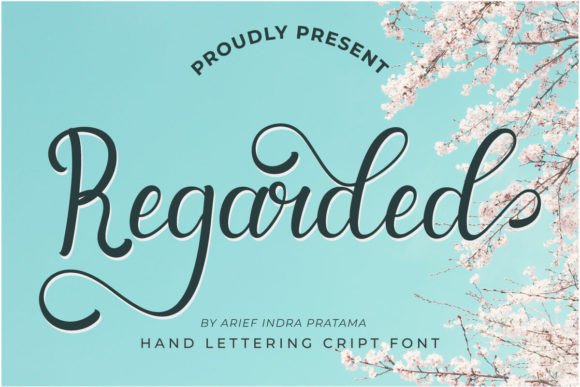
Prepare to be astounded by Regarded, an extraordinary script font that will leave an indelible impression on your creative projects. Immerse yourself in its captivating flow and elegant curves that mimic the beauty of handwritten calligraphy. Each letterform is meticulously crafted to evoke a sense of sophistication and charm, ensuring your designs captivate and inspire.
With Regarded, you hold the key to unlocking remarkable visual experiences. Its impeccable quality shines through, even on high-resolution displays, making it the perfect choice for digital designs that demand attention. Elevate your website, social media posts, and digital advertisements with Regarded's captivating presence.
Step into a world where creativity knows no bounds. Use Regarded to create stunning wall displays that command attention, wedding invitations that exude timeless elegance, and social media posts that spark conversations. Let your imagination run wild as you craft logos that leave a lasting impression, advertisements that resonate with your audience, and product packaging that entices customers.
Regarded's versatility extends beyond the digital realm. Unleash its potential in your physical creations, such as product designs that exude individuality, labels that add a touch of sophistication, and photography that captivates the senses. Transform your watermarks into works of art, elevate your invitations with a hint of charm, and infuse your stationery with a personal touch.
With Regarded, every project becomes an opportunity to showcase your unique style. Its wide range of applications makes it the ideal font for those seeking to make a statement. Whether it's a personal project or a professional endeavor, Regarded stands ready to amplify your creativity and leave a lasting impression.